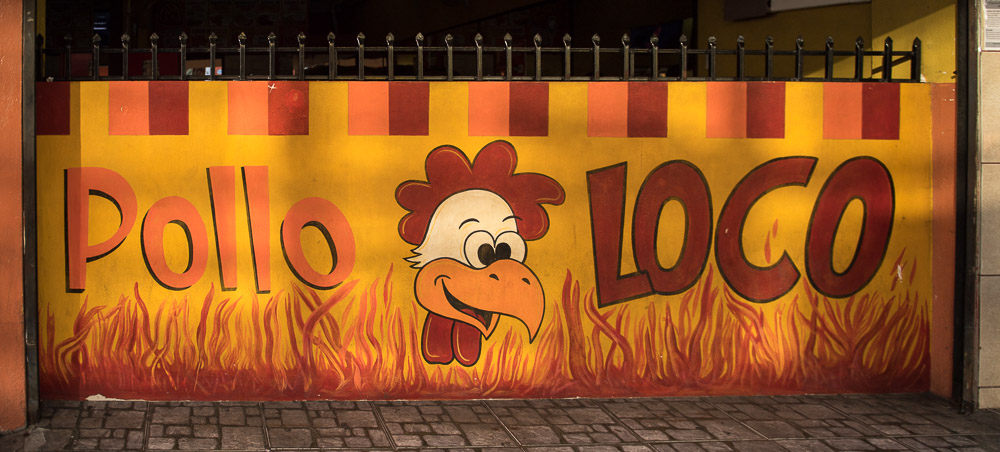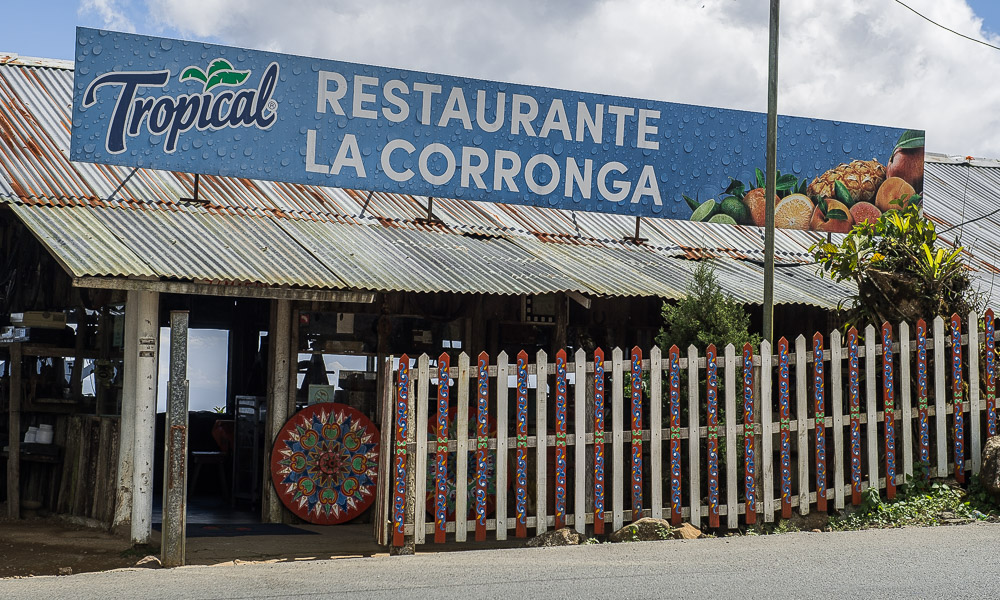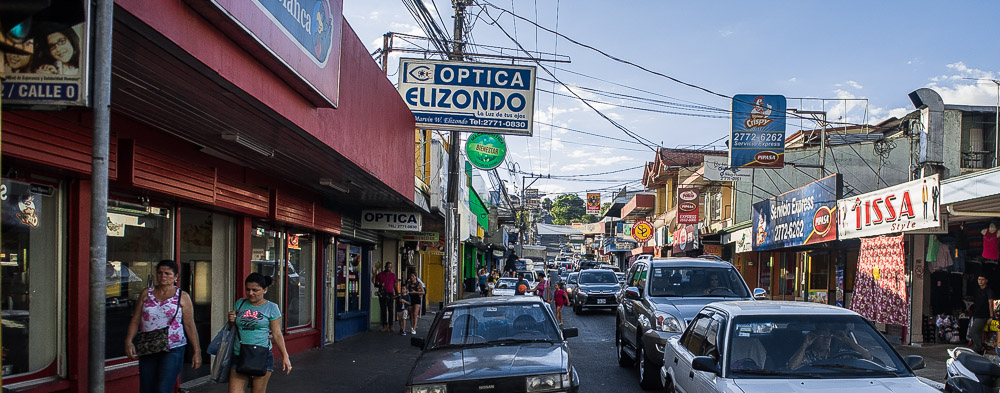
Darla and I spent a couple of warm weeks in Costa Rica in January. It was roughly 88 degrees there and -20 degrees here in Jackson Hole during our trip. Easy trade!
I snapped a few sign photos while there, including this hand painted one.
Many signs we saw were printed, as in this sign over a restaurant / museum. "Tropical" is a fruit drink, and much like the old Coca-Cola signs of the day, appear to supply the identity sign in exchange for their advertising.
We stayed in a small town called Dominical. It's a tourist spot with good surfing. The shot above is inland at San Isidro about 30 miles. The town sits below Costa Rica's highest peak. Dominical caters to English speaking tourists, with most signs and menus in both Spanish and English.